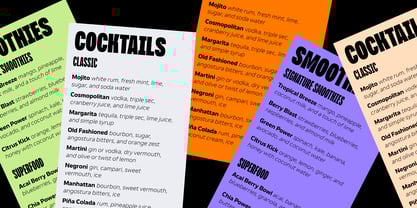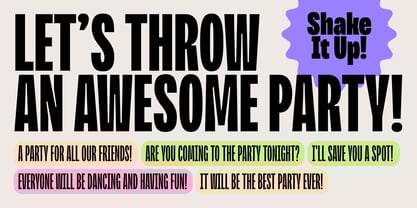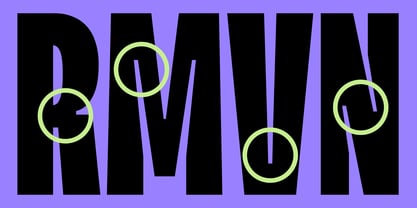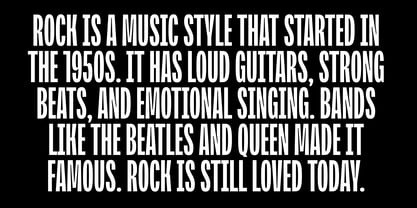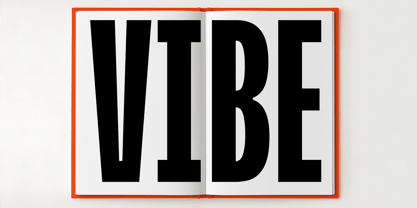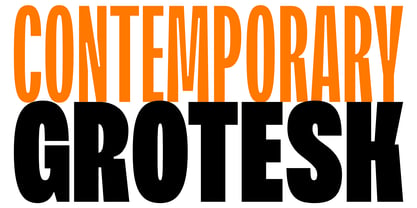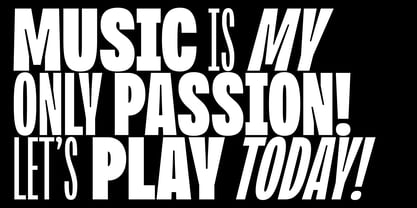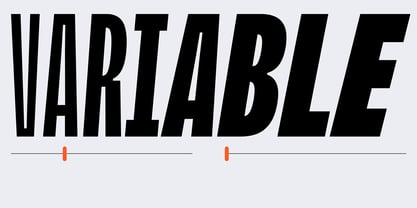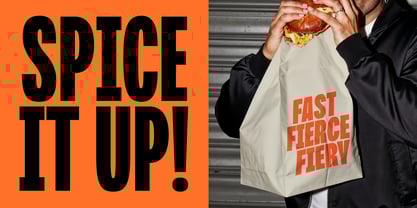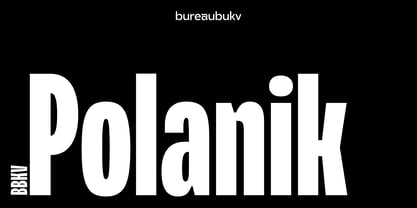
BBKV Polanik
About BBKV Polanik
A narrow modern grotesque with dynamic width modulation based on saturation. Sharp inktraps give it a distinctive voice, especially in heavier weights. Designed for flexibility, this typeface works equally well in compact text settings and bold, eye-catching titles. Its clean geometry and expressive details make it ideal for branding, editorial use, logos, and digital interfaces. A smart choice when clarity and character need to go hand in hand.